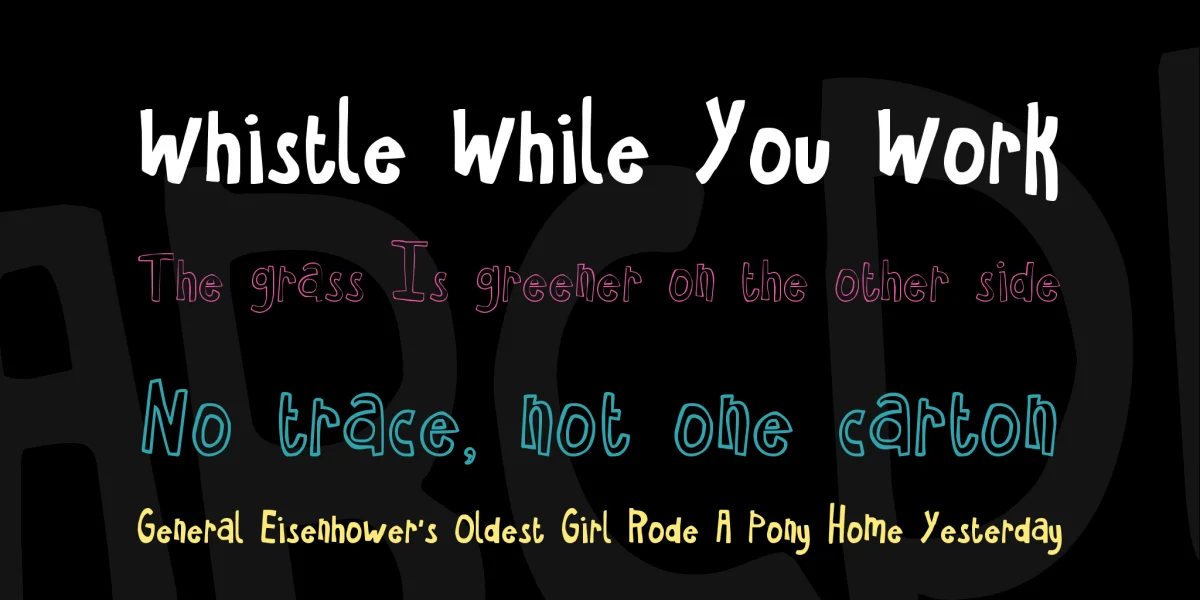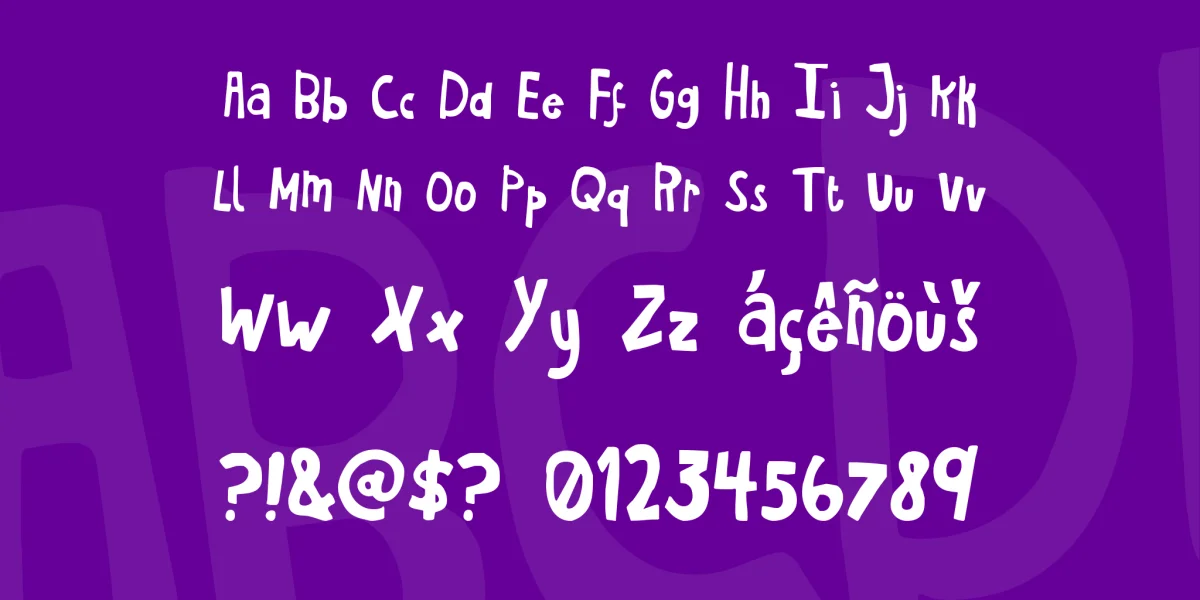
This font comes in both bold and regular- the bold makes it easier to read if it isnt filled in with color.
I absolutely adore this font and the high school student, Michael Headrick, who drew it out for me is extremely talented!